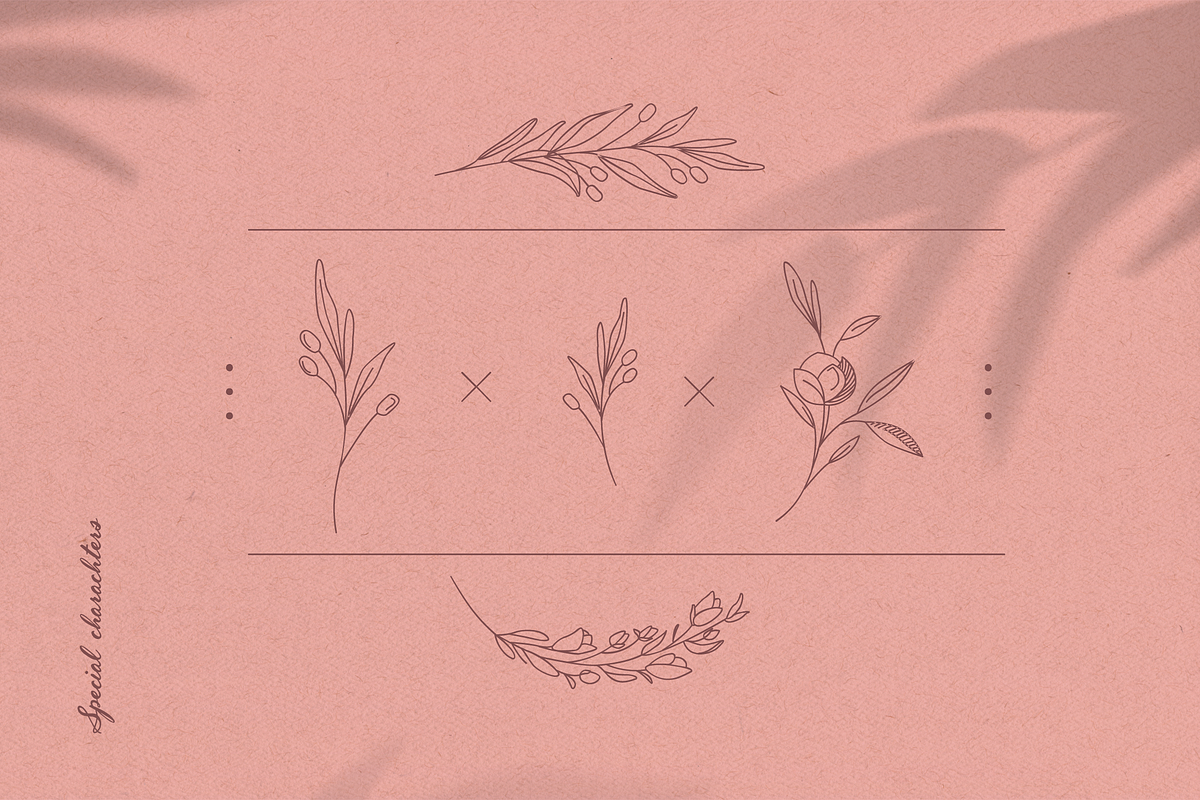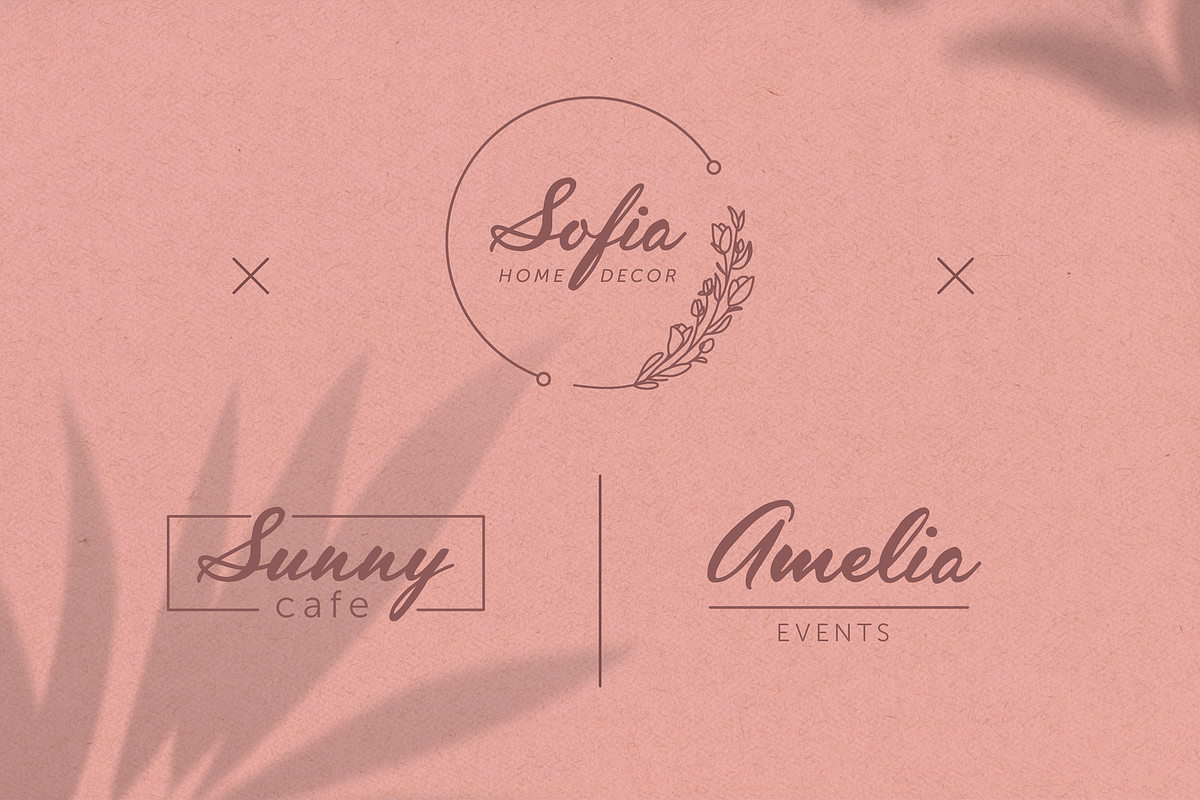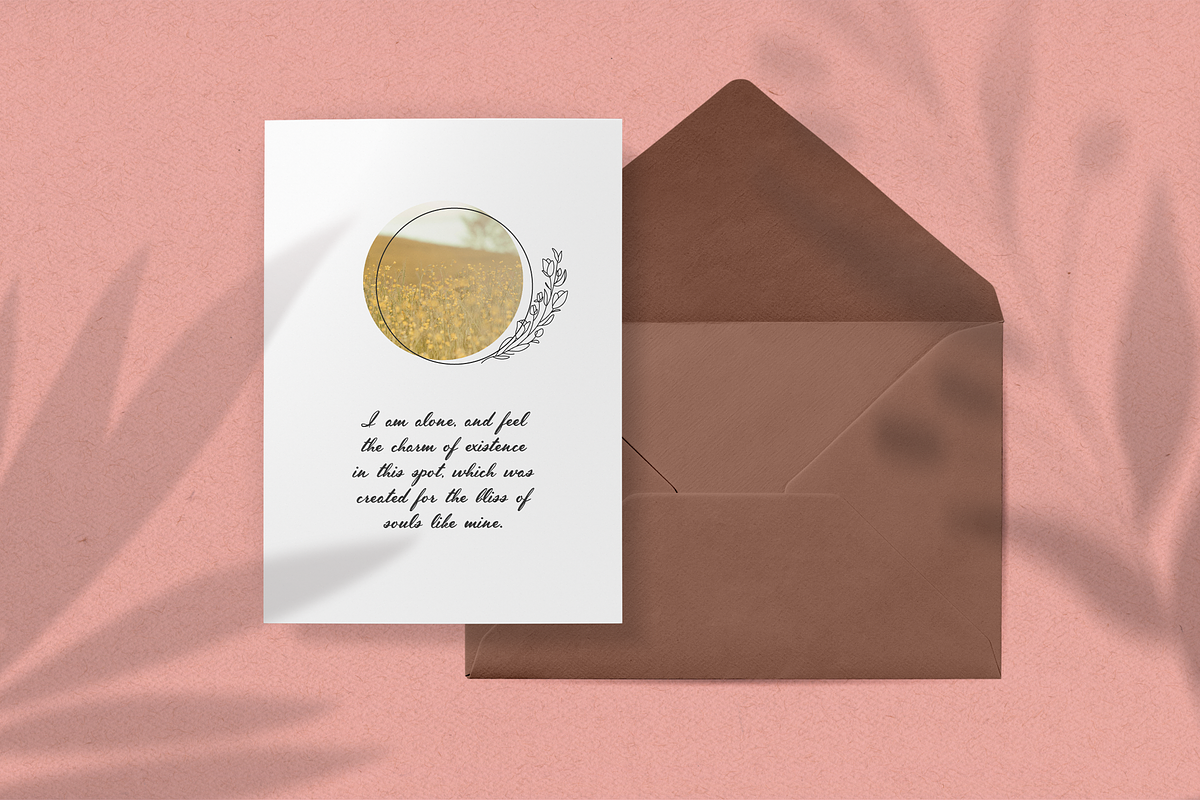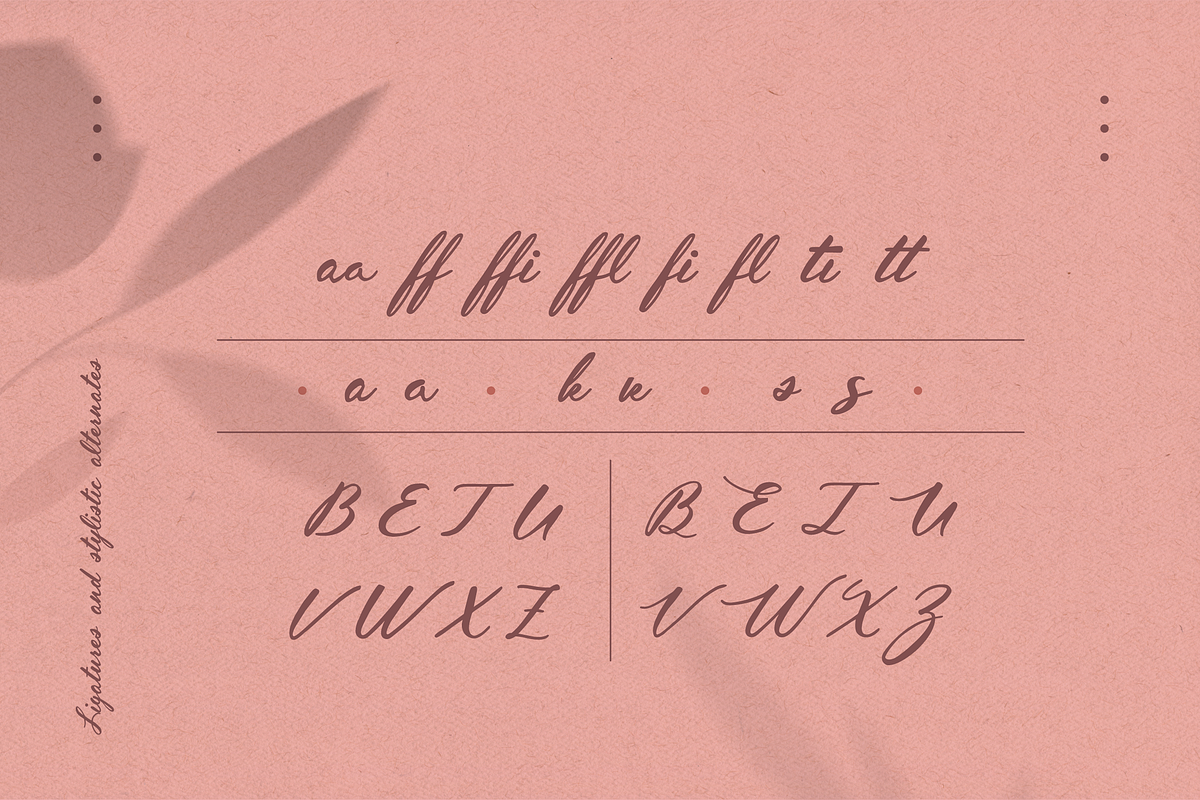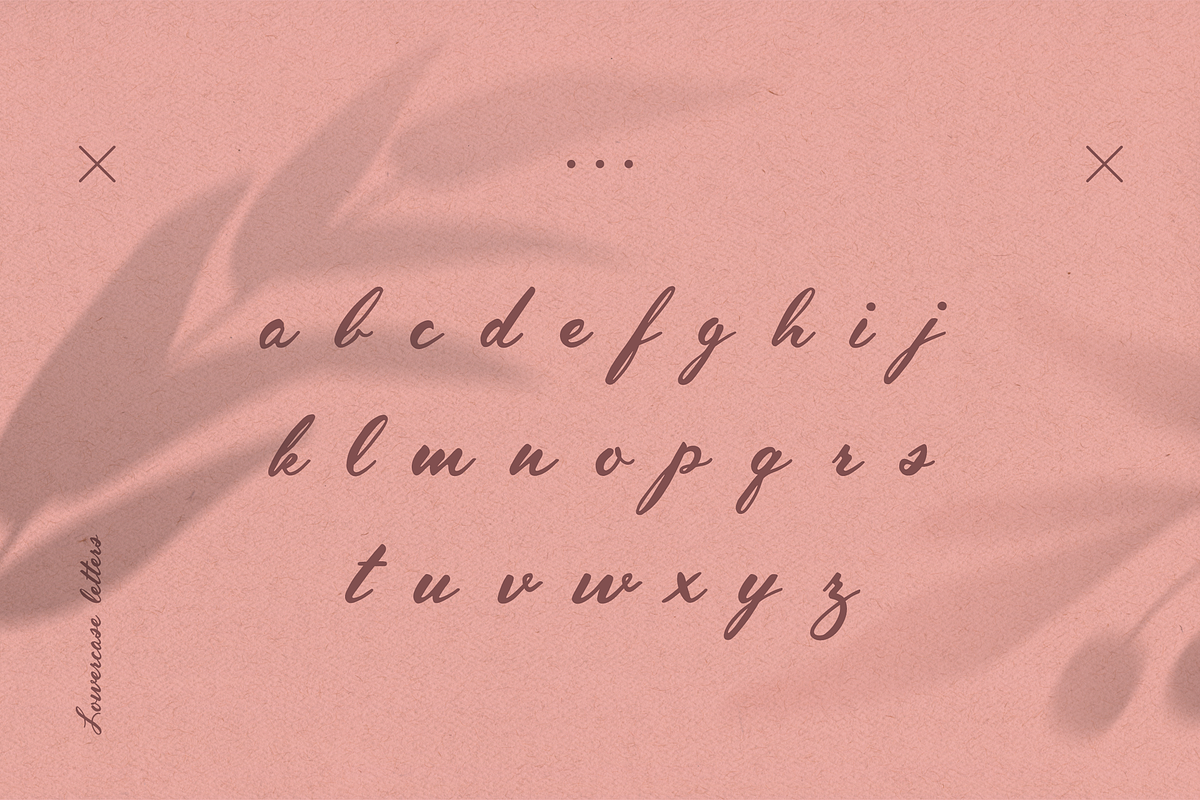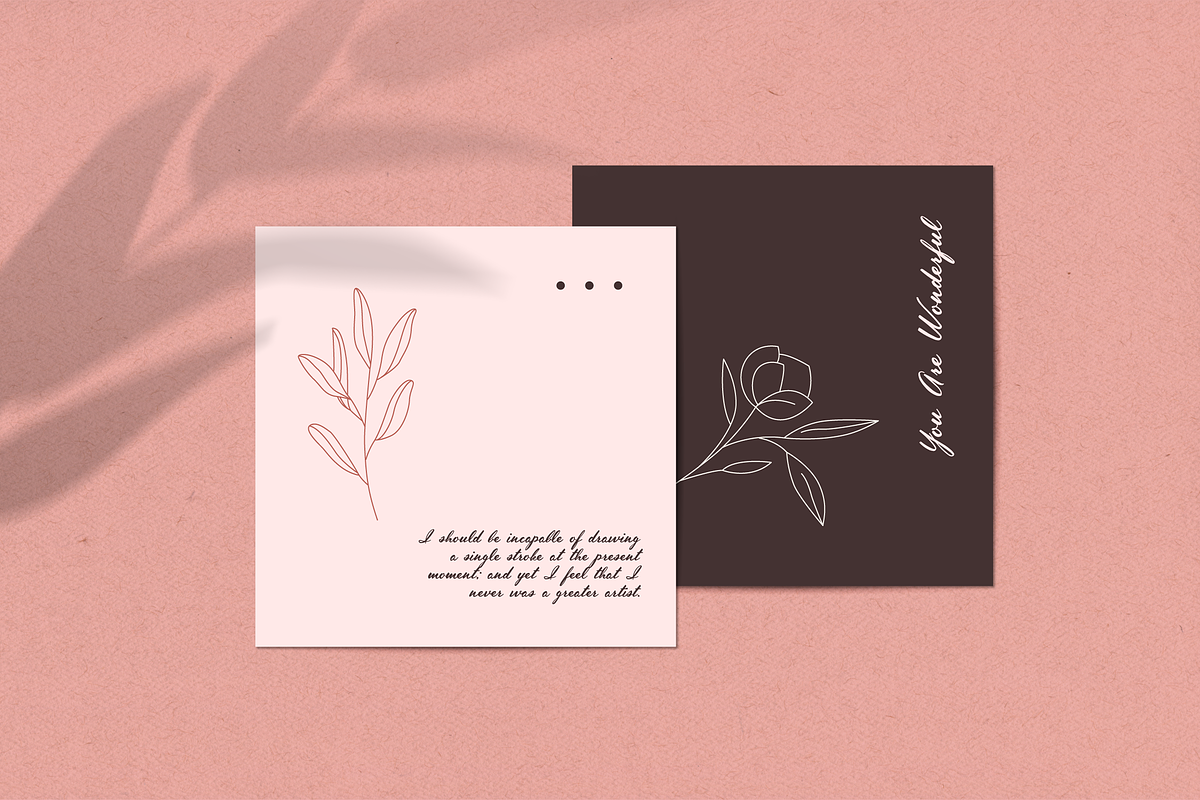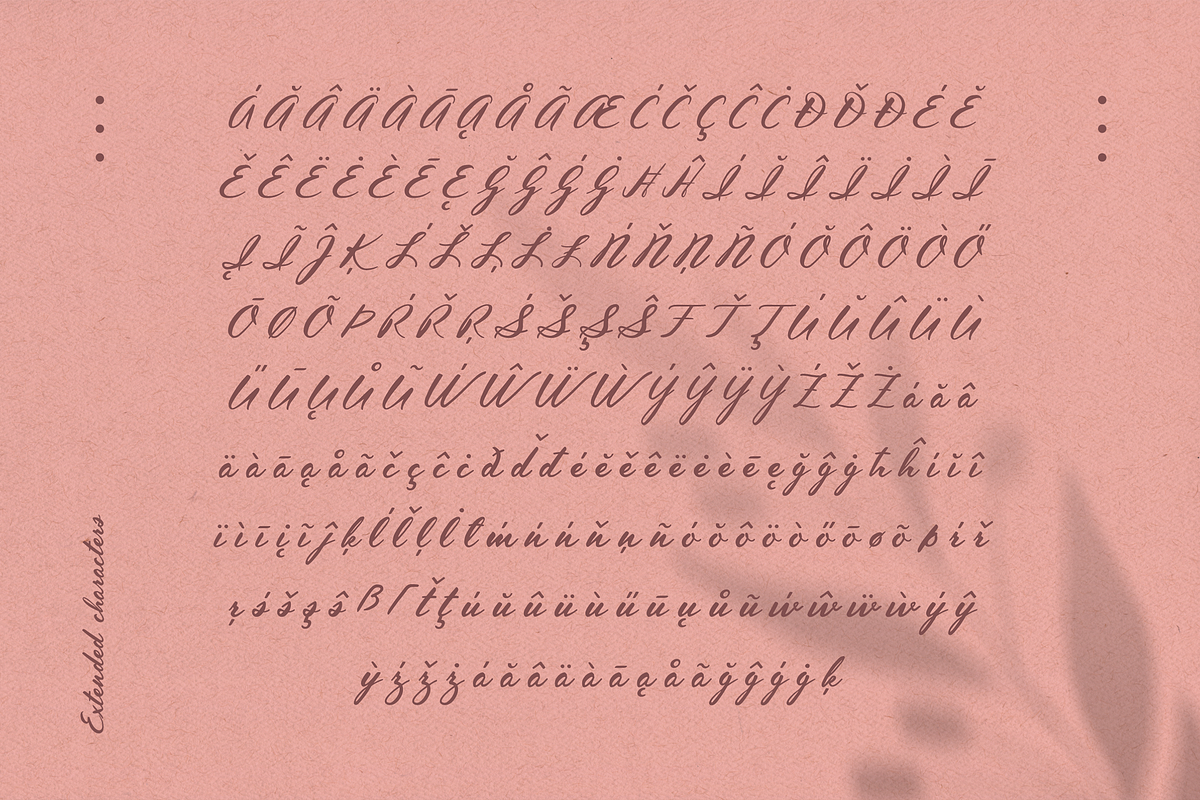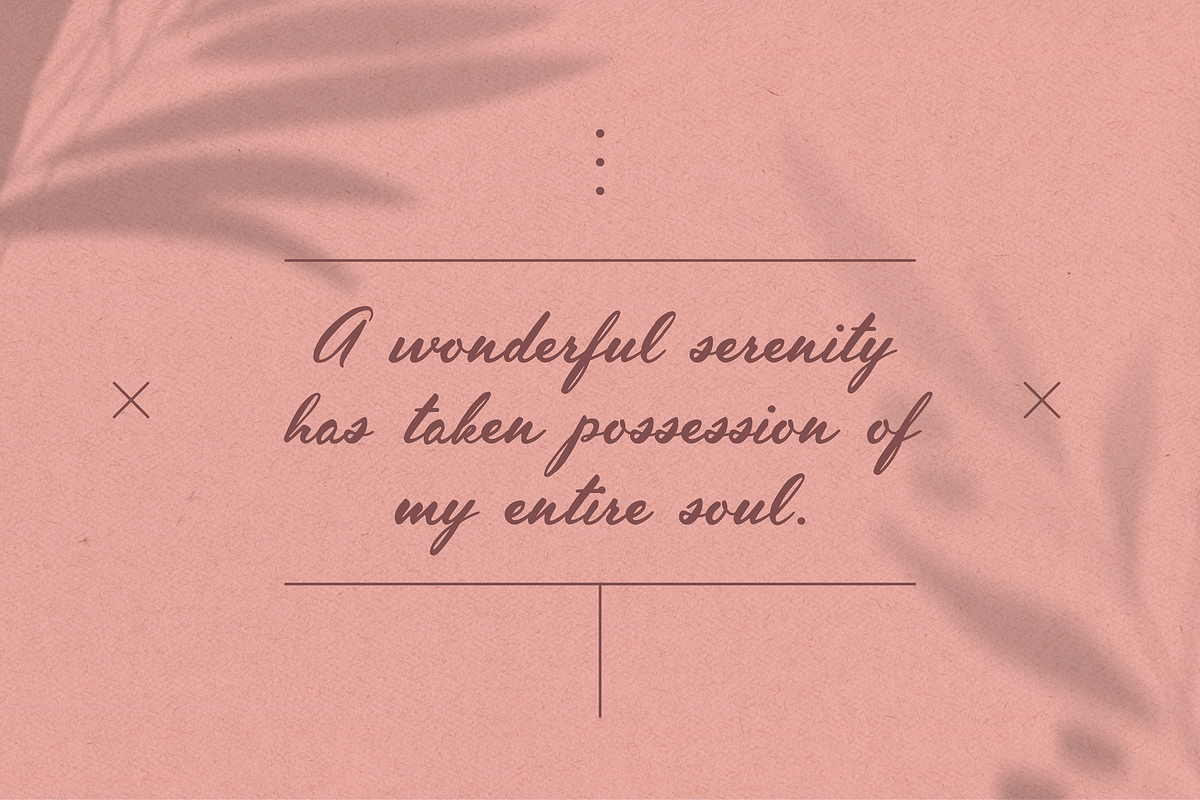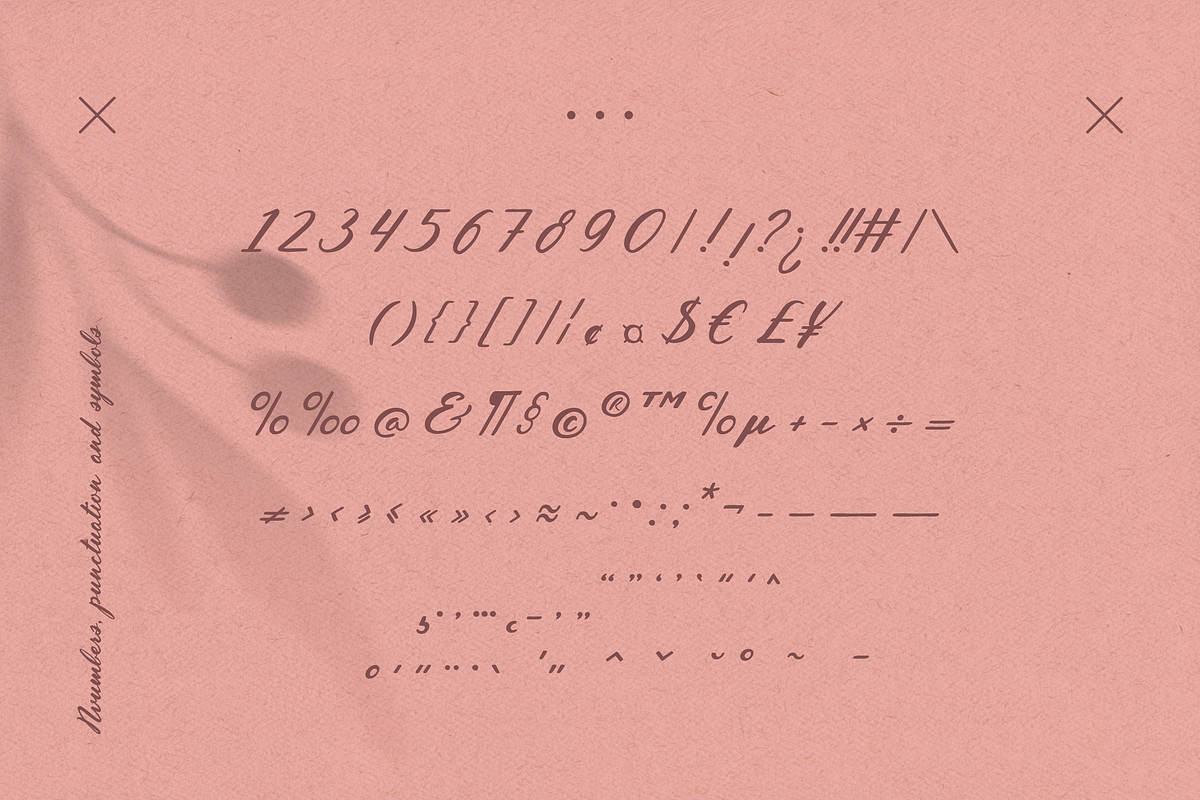
Inola Hand Lettered Font
Inola is hand lettered font in modern calligraphy style. It resembles an actual handwritten letters that can make great font for branding, logo design and graphic identities.
Font includes basic uppercase and lowercase letters, numbers and extended set of characters as well. Inola includes ligatures and stylistic alternates for some letters and floral symbols to include in your designs, find them all in glyphs panel.